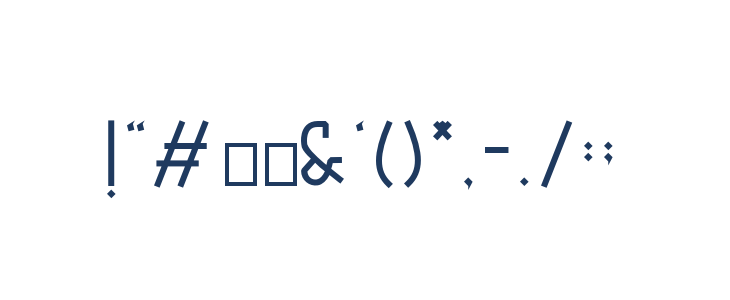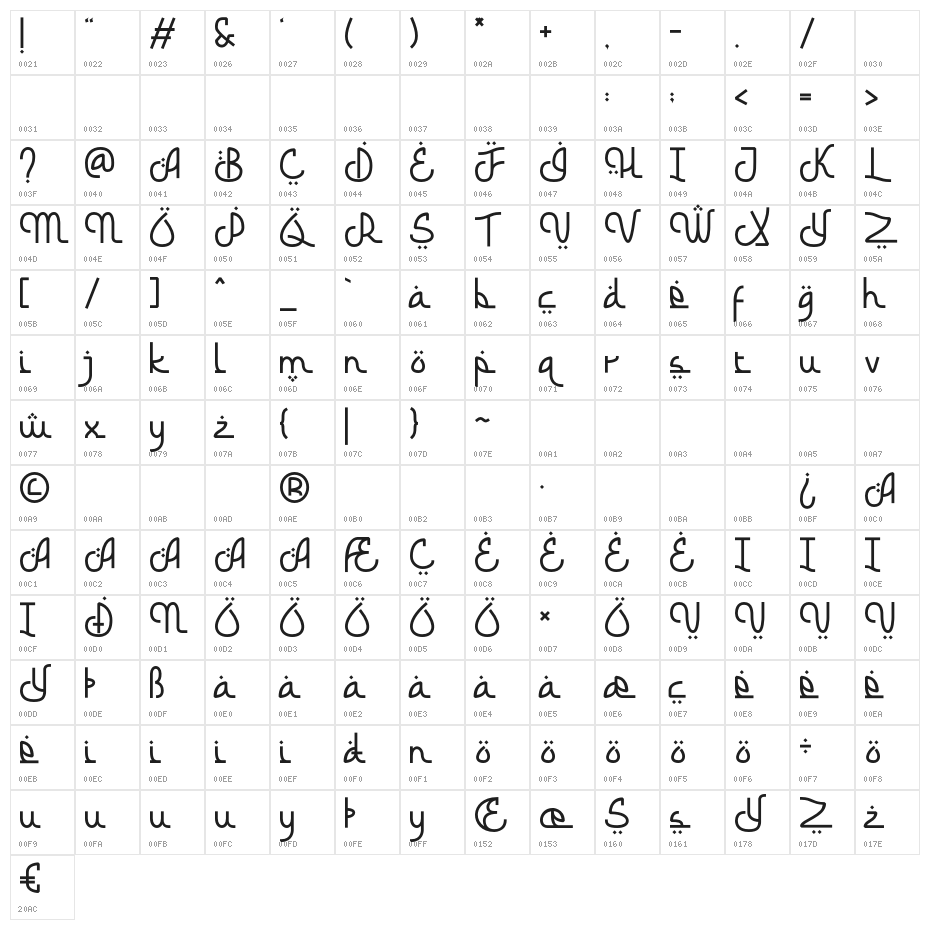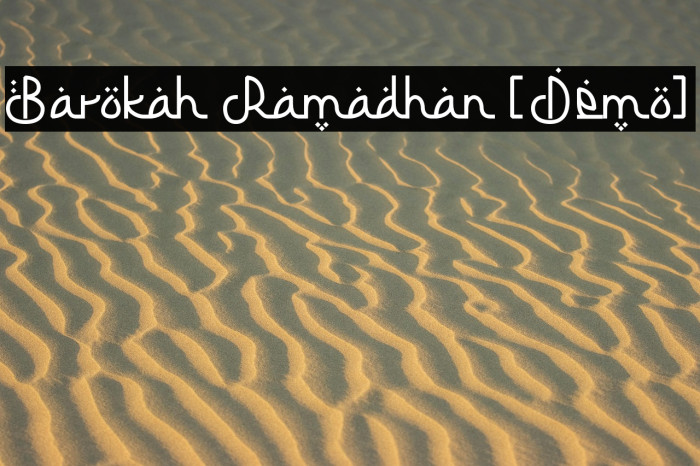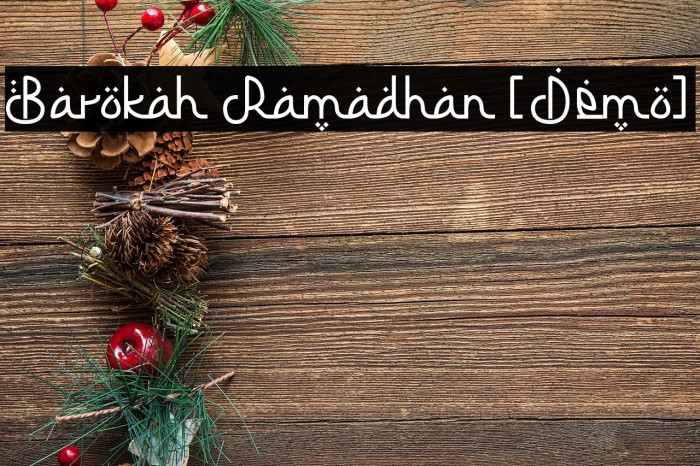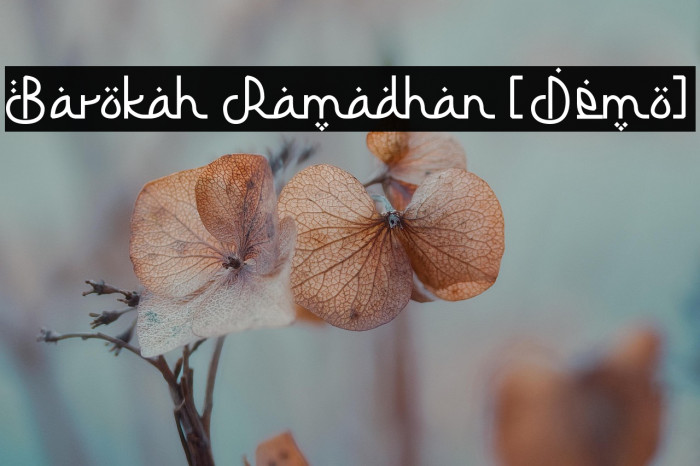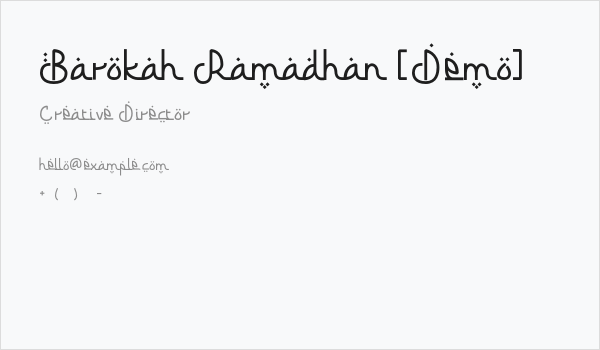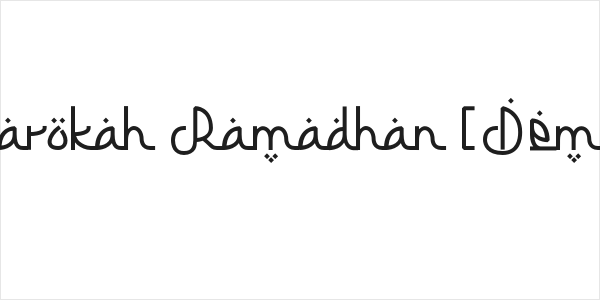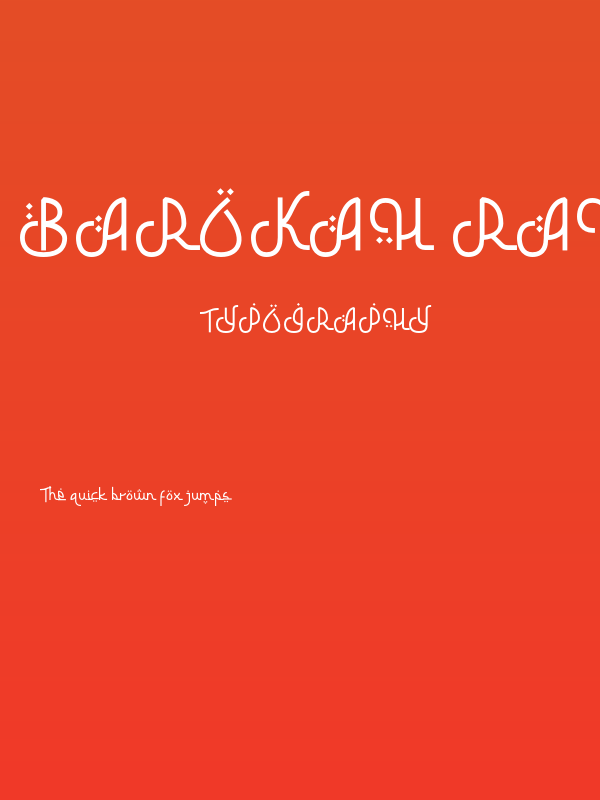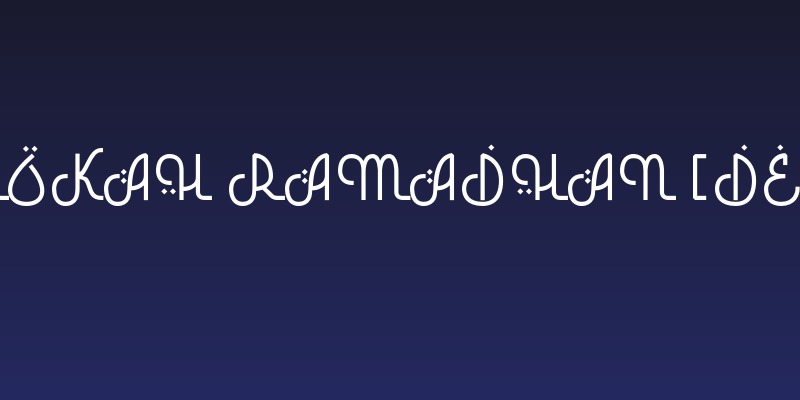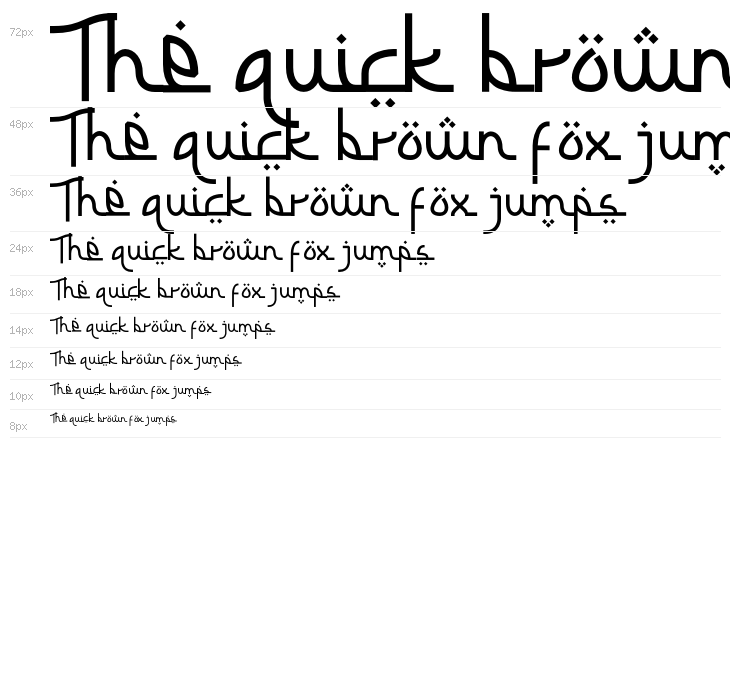
Barokah Ramadhan [Demo] Font
Barokah Ramadhan [Demo] Description
This font features a unique blend of modern and decorative elements, characterized by its distinct use of diacritical marks and elongated strokes. The uppercase letters are adorned with dots and accents, giving them an ornamental appearance, while the lowercase letters maintain a more streamlined and cohesive look. The special characters and numerals are crafted with a similar attention to detail, ensuring consistency throughout the typeface. The overall design is both playful and sophisticated, making it suitable for creative projects that require a touch of elegance and flair.
| Proposed Projects | Ideal for branding, invitations, posters, and any project seeking a distinctive and elegant touch. |